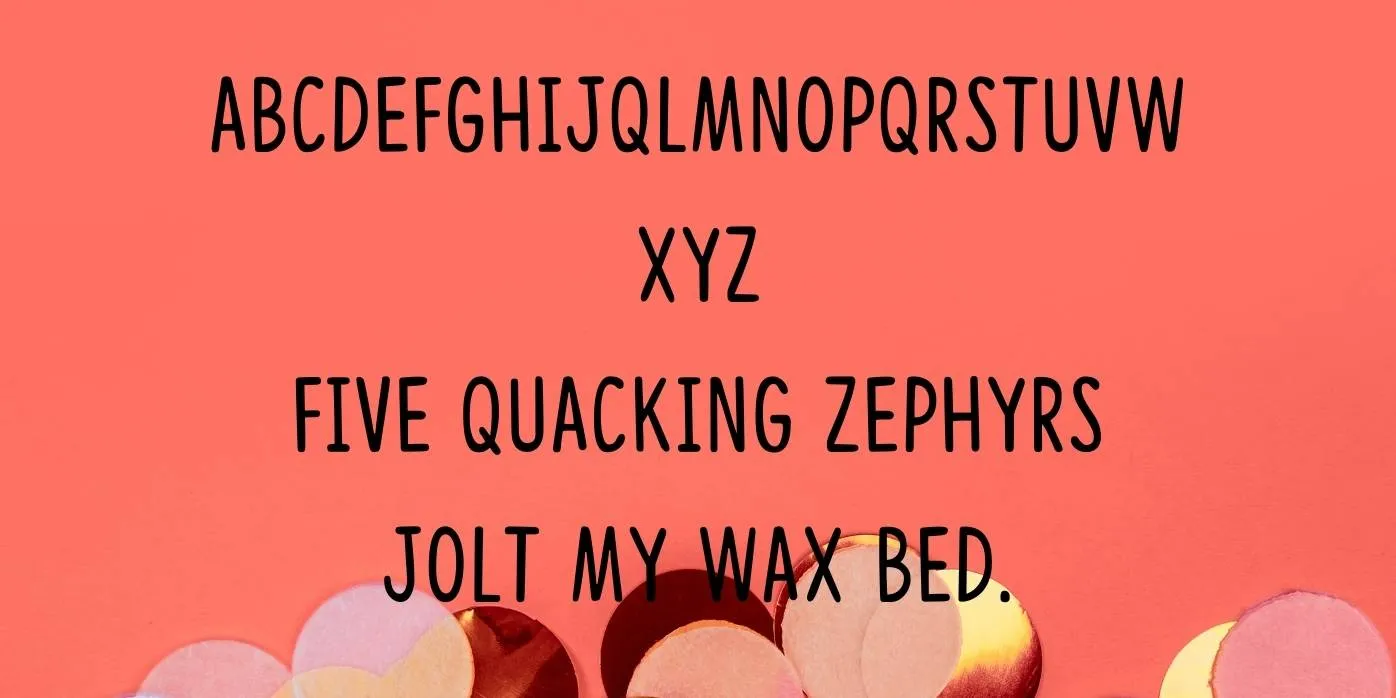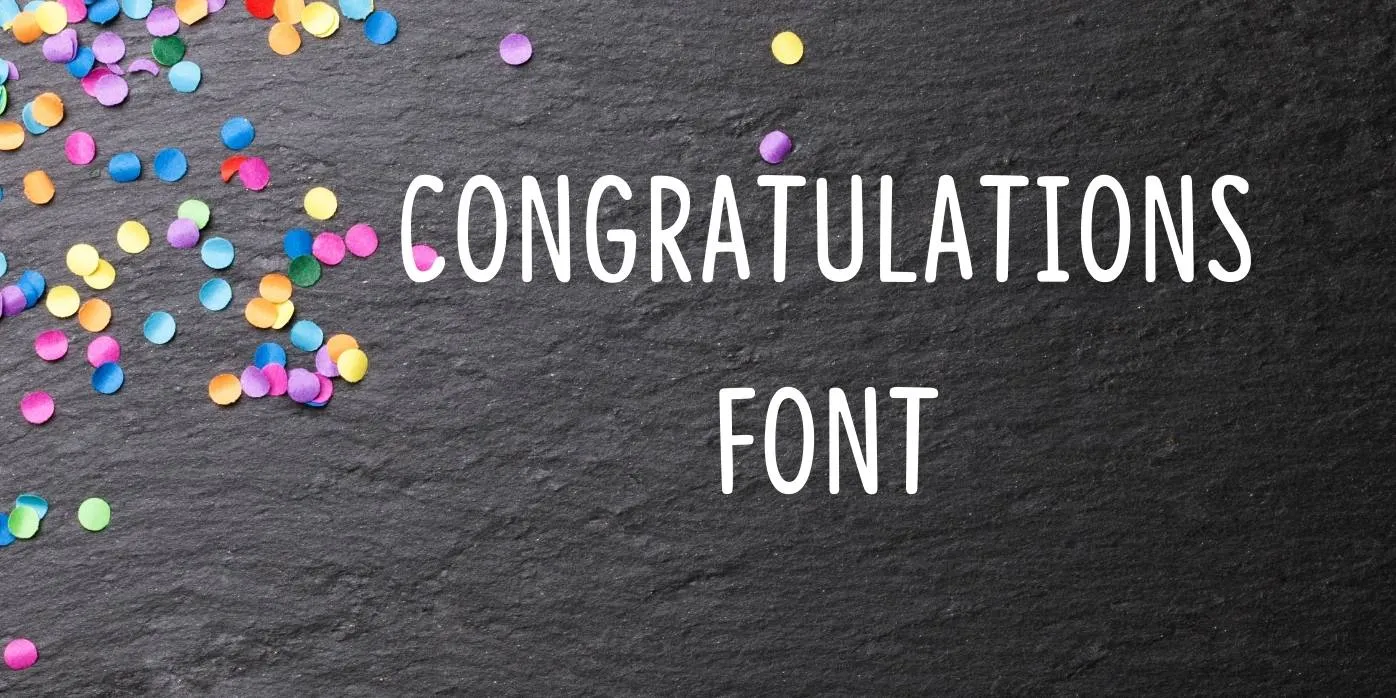
Congratulations Font
We are glad to introduce a most famous and modern typeface that is famous by name Congratulations font. This font belongs to the handwritten typeface. It was designed by too much hard work of elegant designer  Paperstreet. This font was released firstly in 2017.
This font family is suitable for different long paragraphs and various types of titles. This tremendous font family is available in a large number of unique characters almost more than 300. Some of the most famous and common characters are symbols, icons, uppercase and lowercase, and many more. This awesome font is available in strong and popular weight That increases its overall performance.
Like the famous Sans-Serif typeface Arial Font, this font attracts all users towards itself because of its Bold and smooth-looking styles. A great number of famous companies pick this font for their various design fields. This font family has many important Glyphs and is supported all national languages which are why famous all over the world. This marvelous and amazing font is best for different software like Canva.